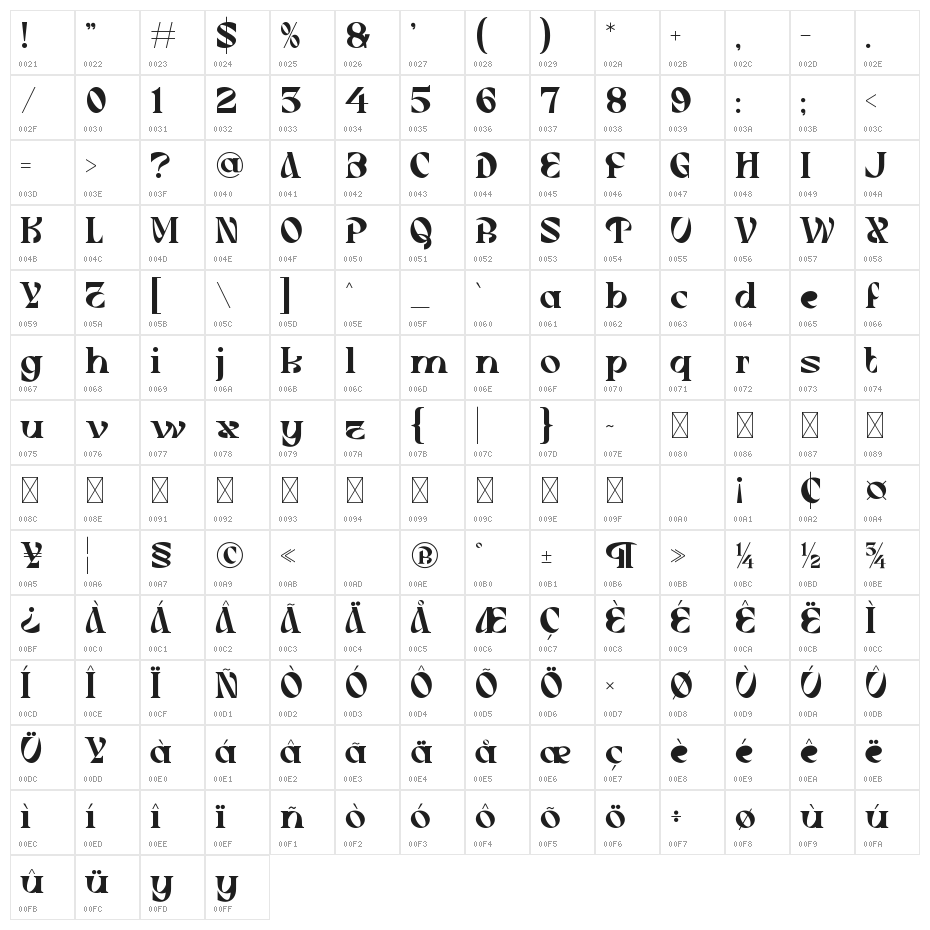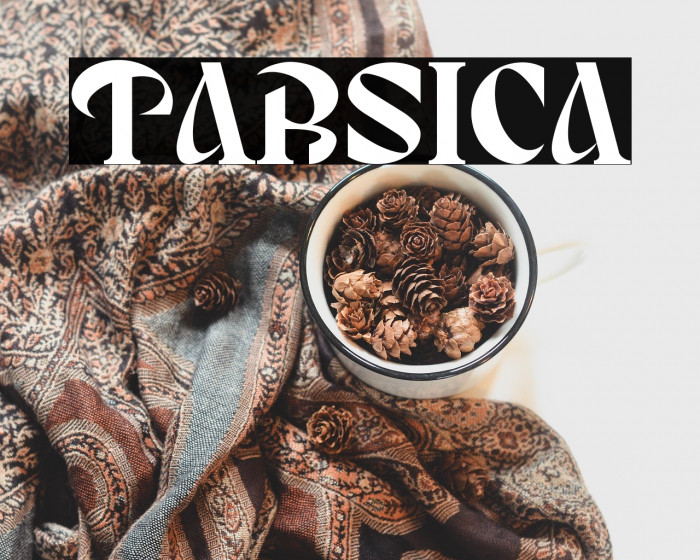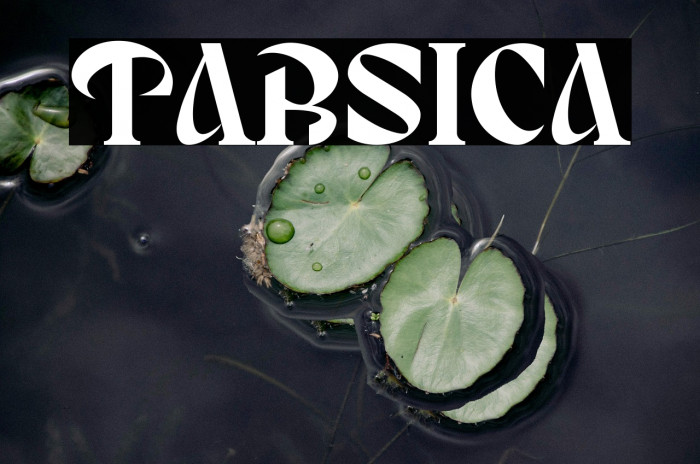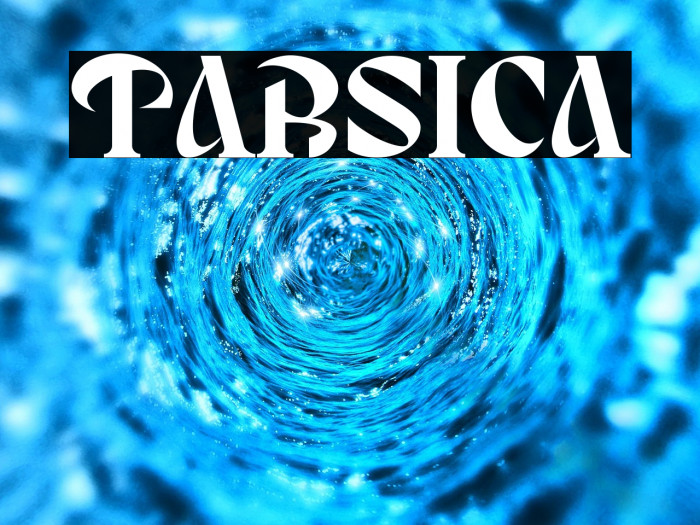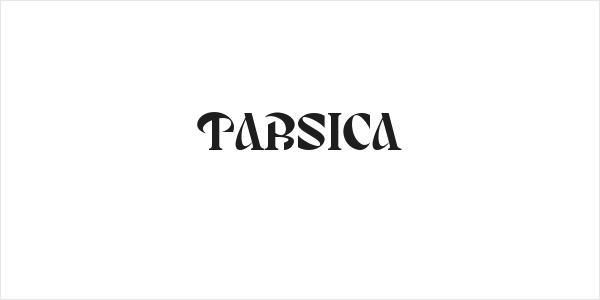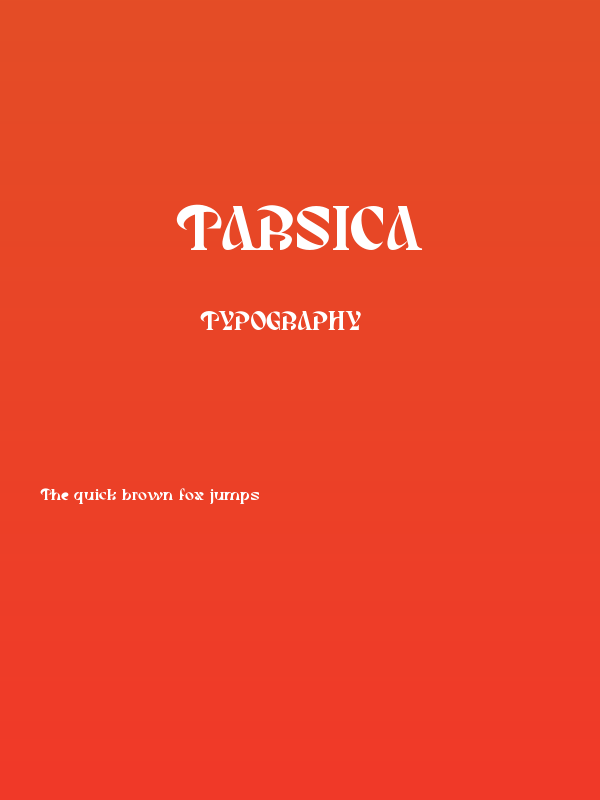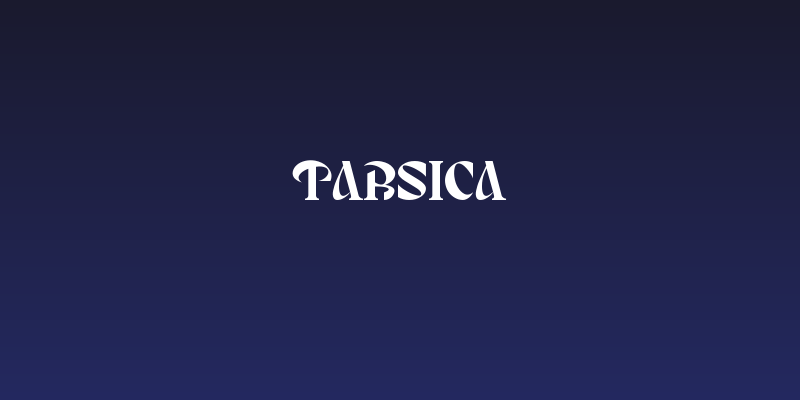
TARSICA Font
TARSICA Description
This font features a bold and dynamic design with a strong presence. The characters are crafted with sharp, angular edges and a high contrast between thick and thin strokes, giving it a dramatic and eye-catching appearance. The uppercase letters exhibit a unique flair with exaggerated serifs and curves, while the lowercase letters maintain a consistent style, enhancing readability. The numerals are equally bold, matching the overall aesthetic of the font. Special characters are designed with the same attention to detail, ensuring a cohesive look across all glyphs.
| Proposed Projects | Ideal for branding, poster design, and headlines where a strong visual impact is desired. |